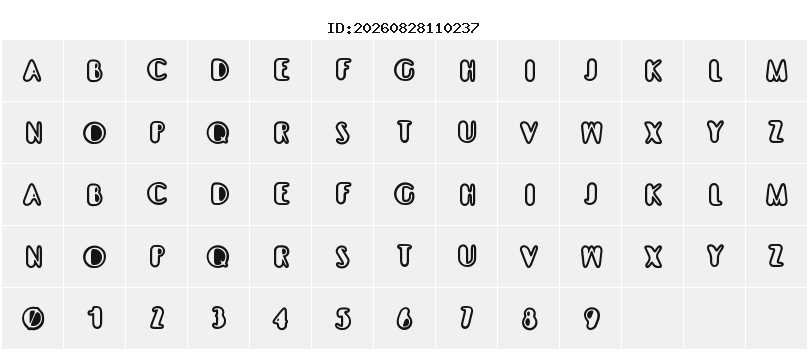
Torremolinos Preview
• Font Name: Torremolinos
• Full Font Name: Torremolinos
About Torremolinos.ttf
Torremolinos.ttf is a modern, elegant sans-serif font designed for ultimate readability and visual harmony. Perfect for branding, headlines, web design, and print materials.